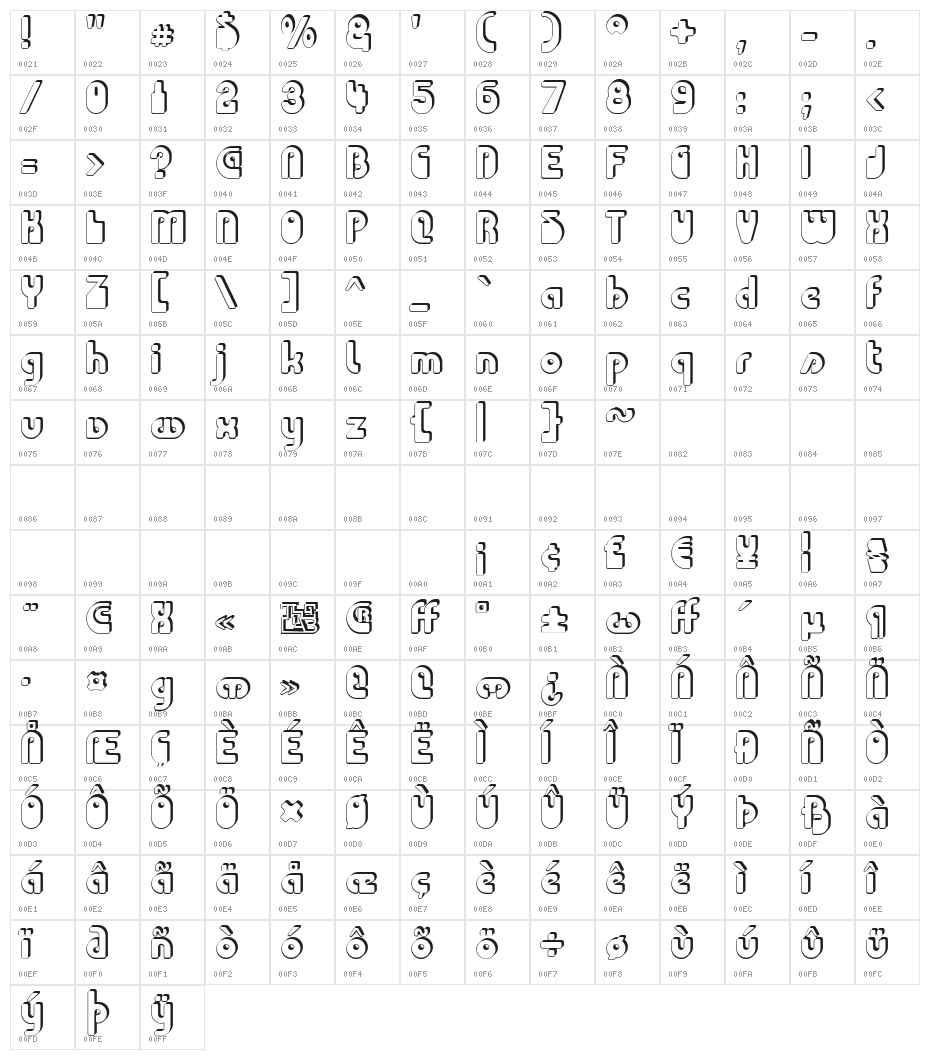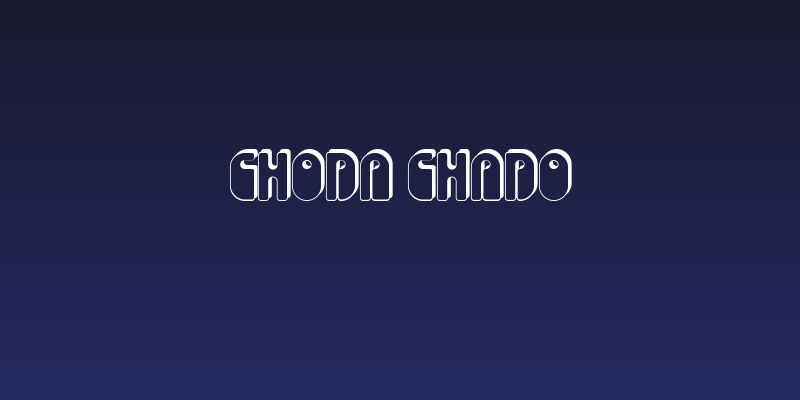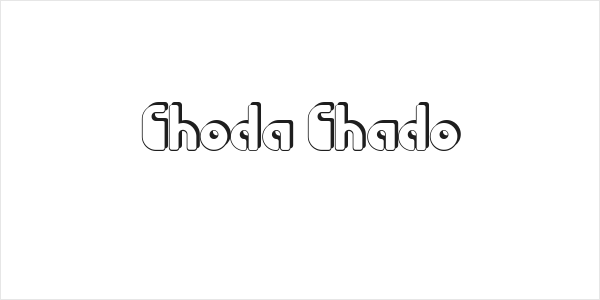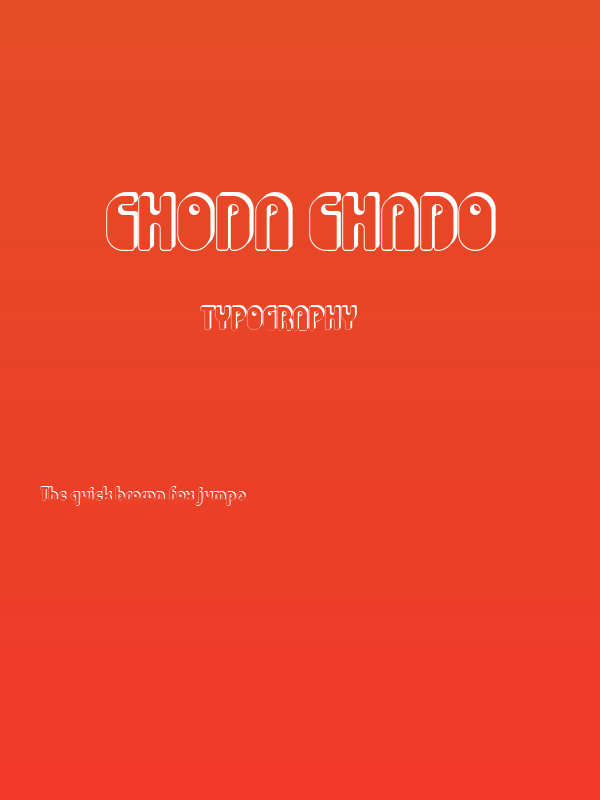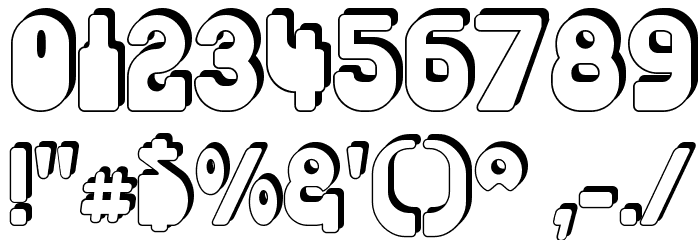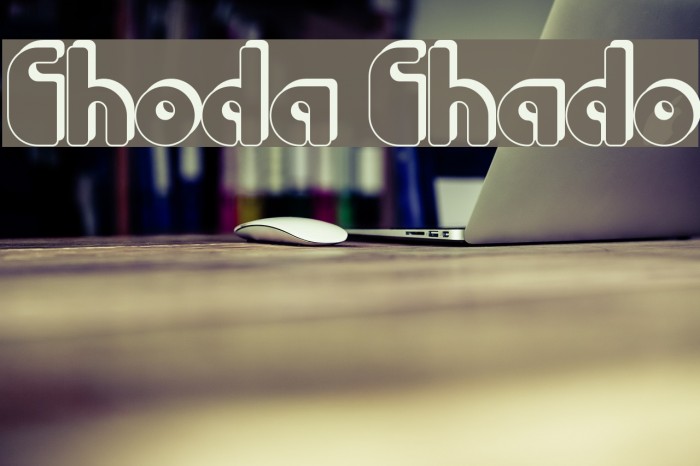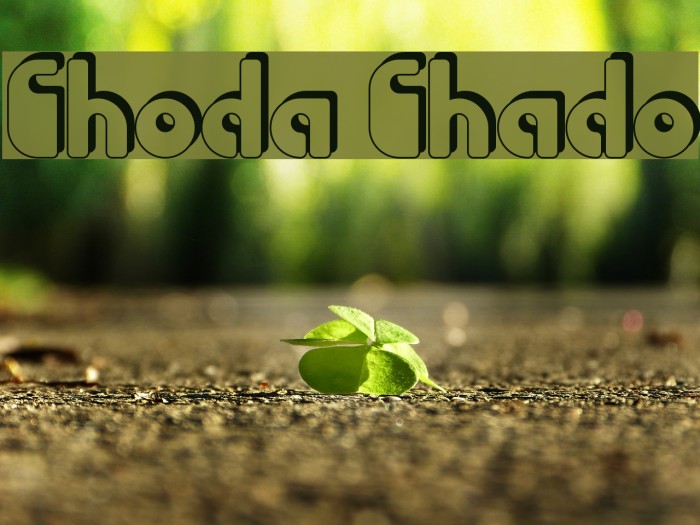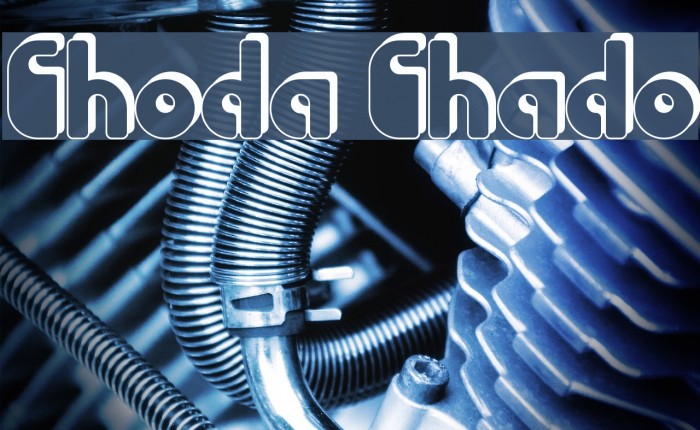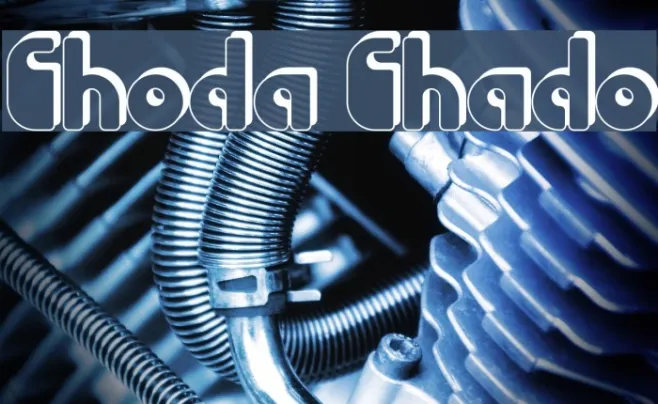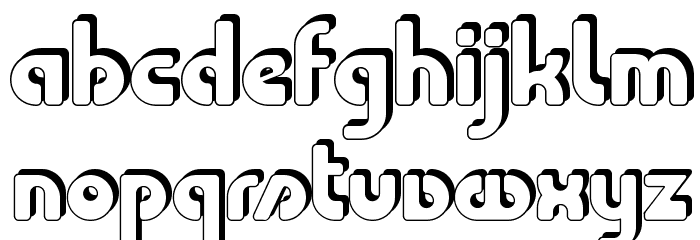
Choda Chado Font
Choda Chado Description
This font features a bold, modern design with a unique hollow outline style. The characters are rounded and geometric, giving them a futuristic and playful appearance. The uppercase and lowercase letters maintain a consistent style, with smooth curves and a uniform thickness throughout. Numbers and special characters follow the same design principles, ensuring cohesion across all elements. The font's distinct outline makes it stand out, ideal for eye-catching designs.